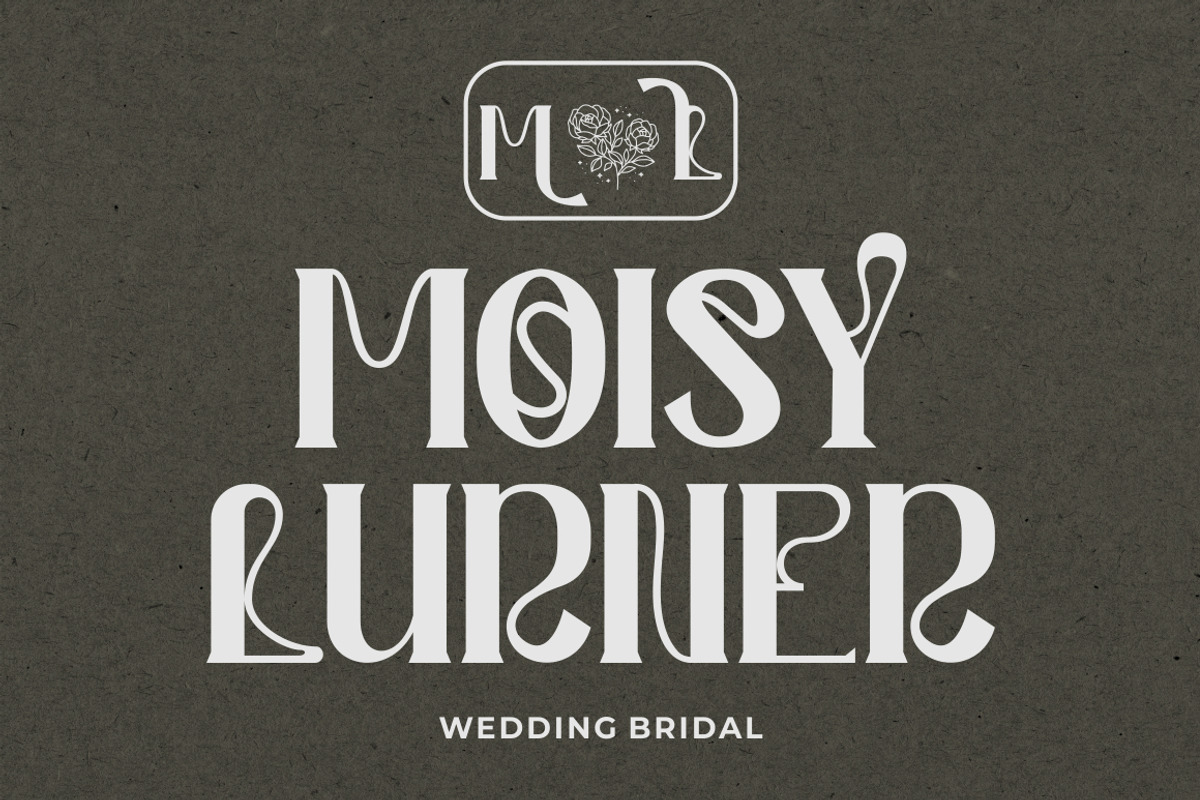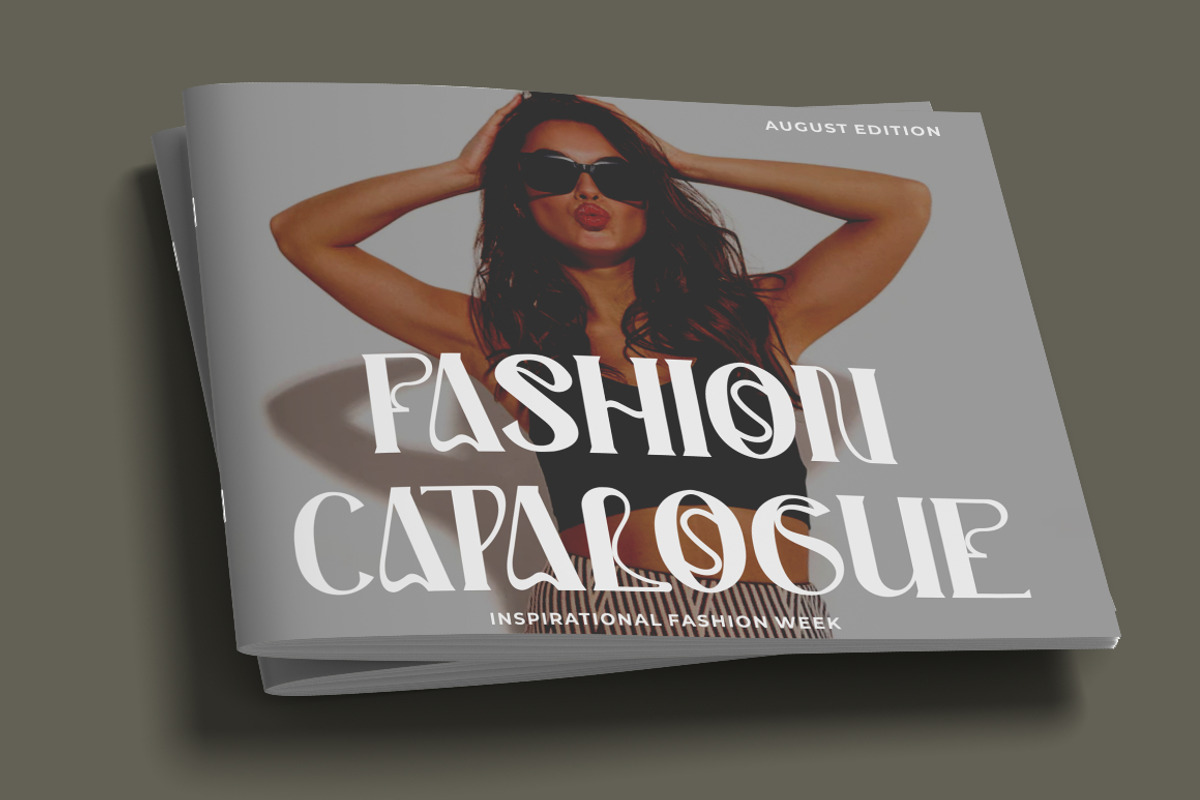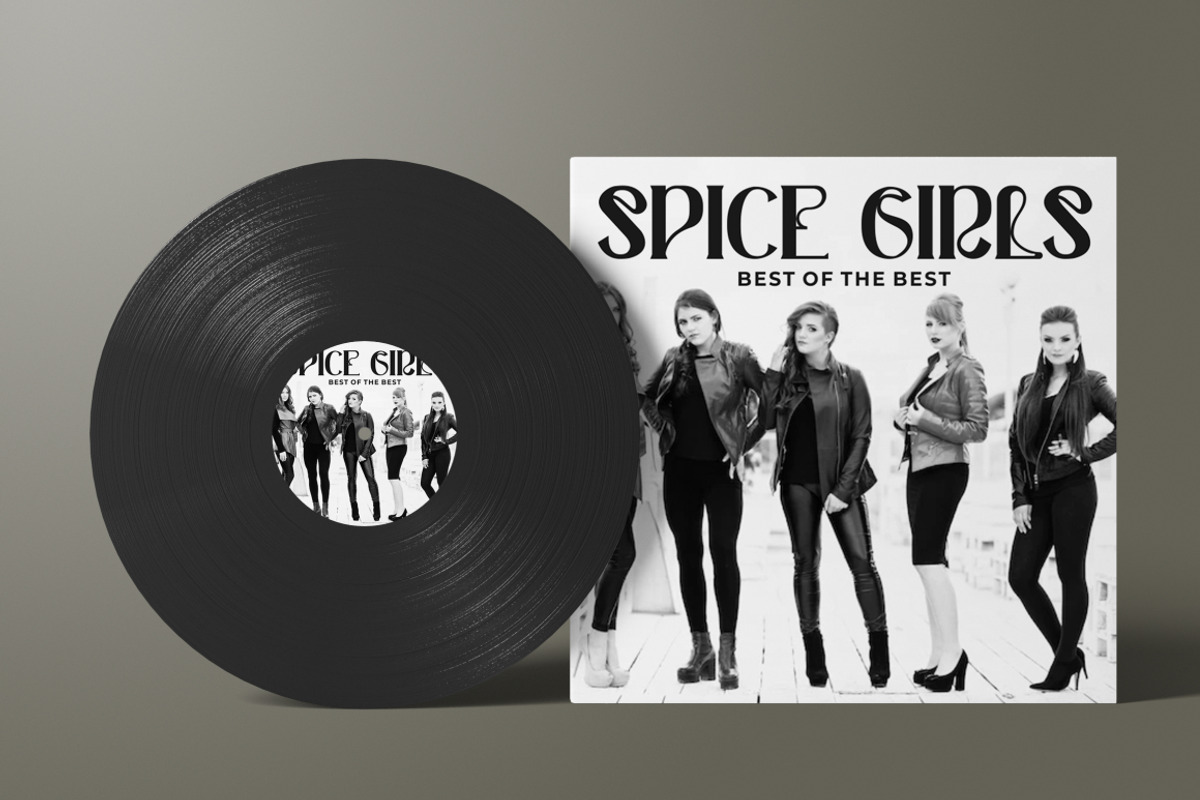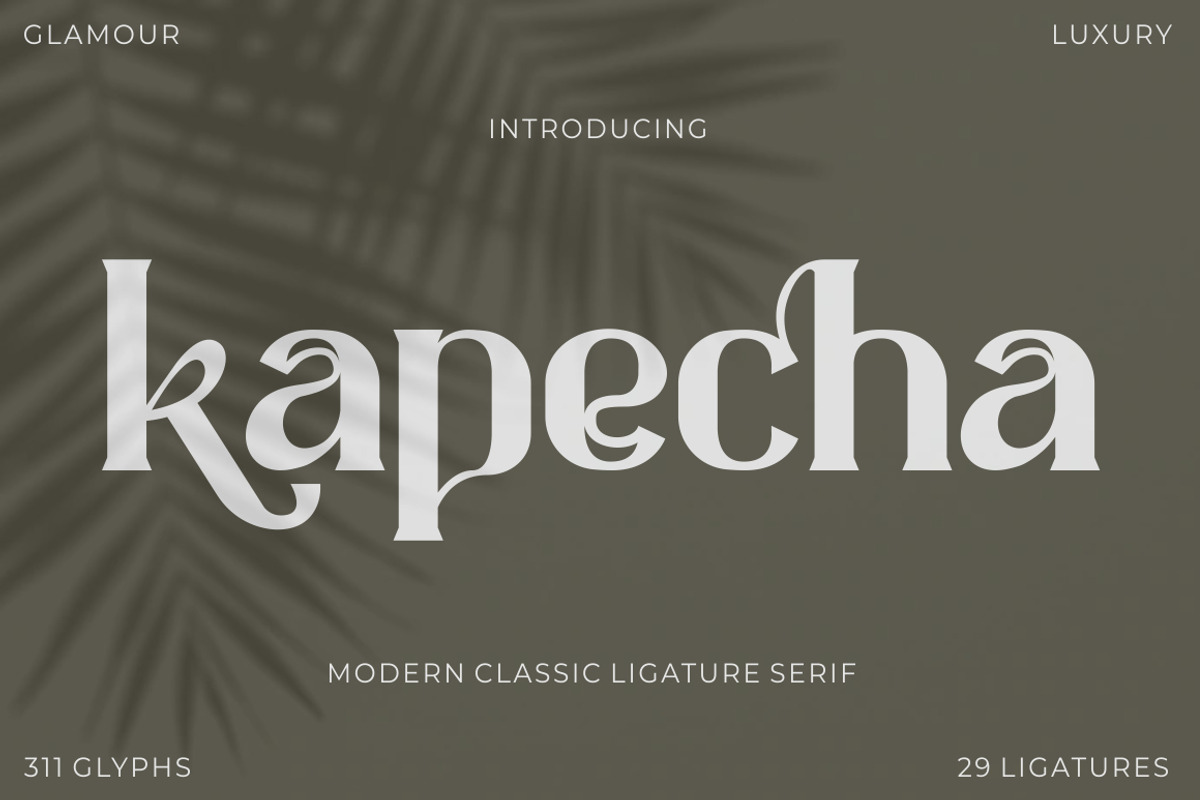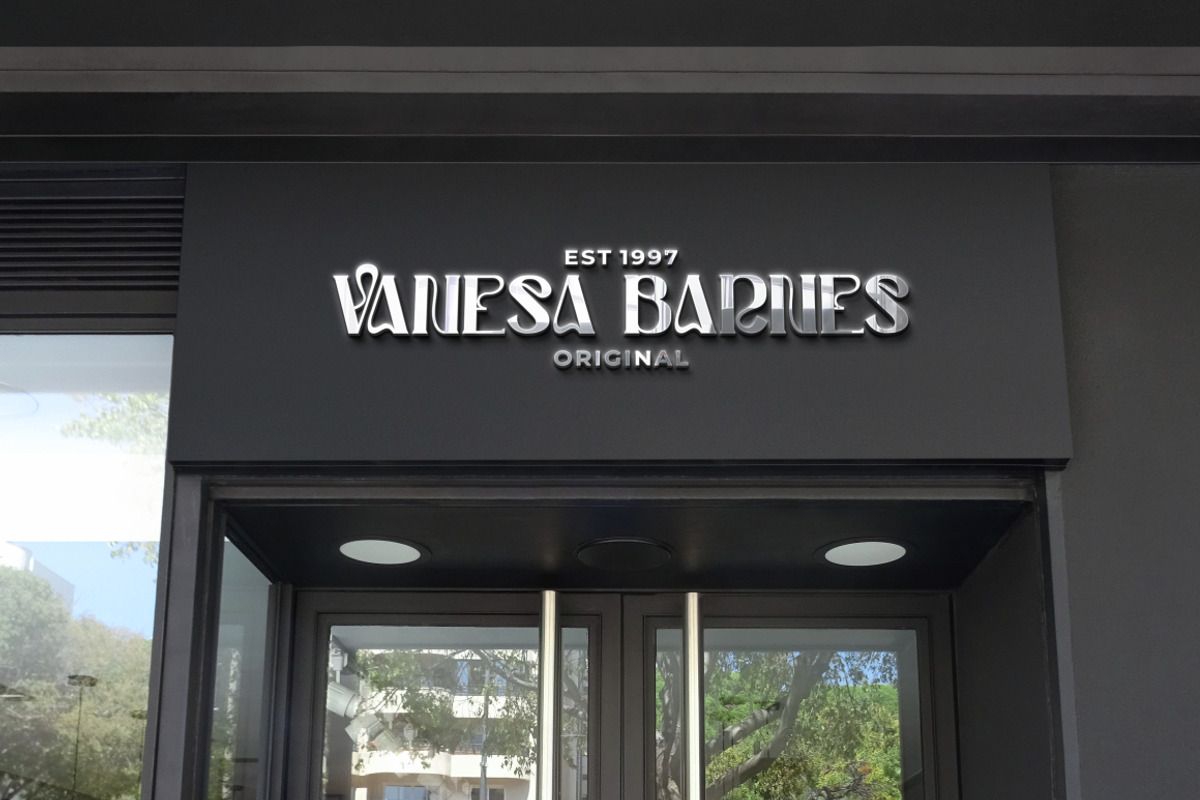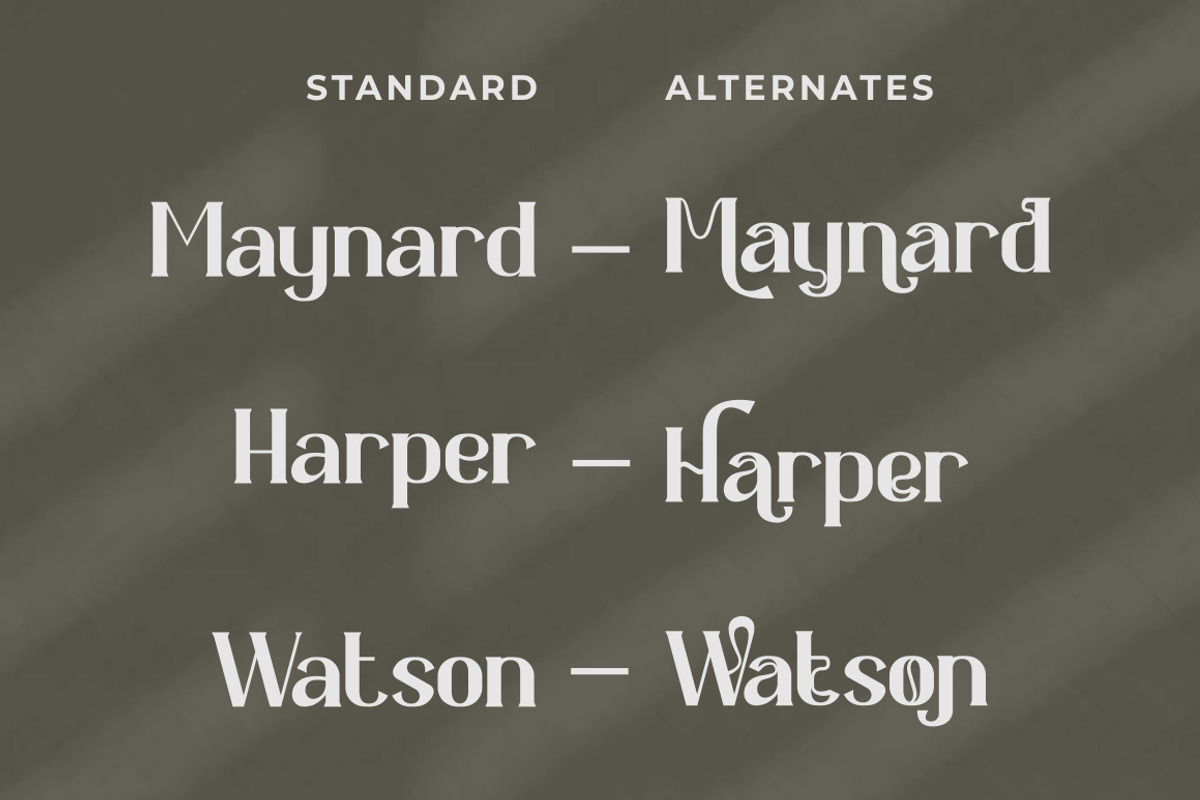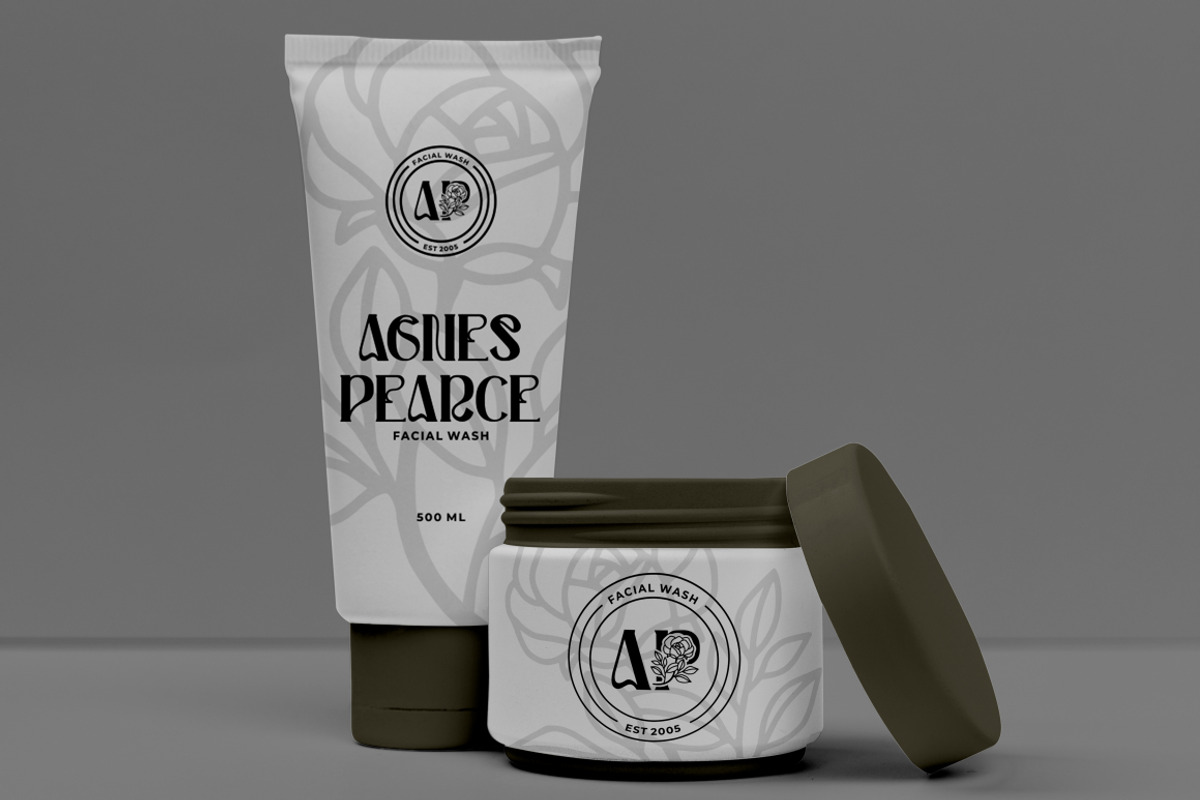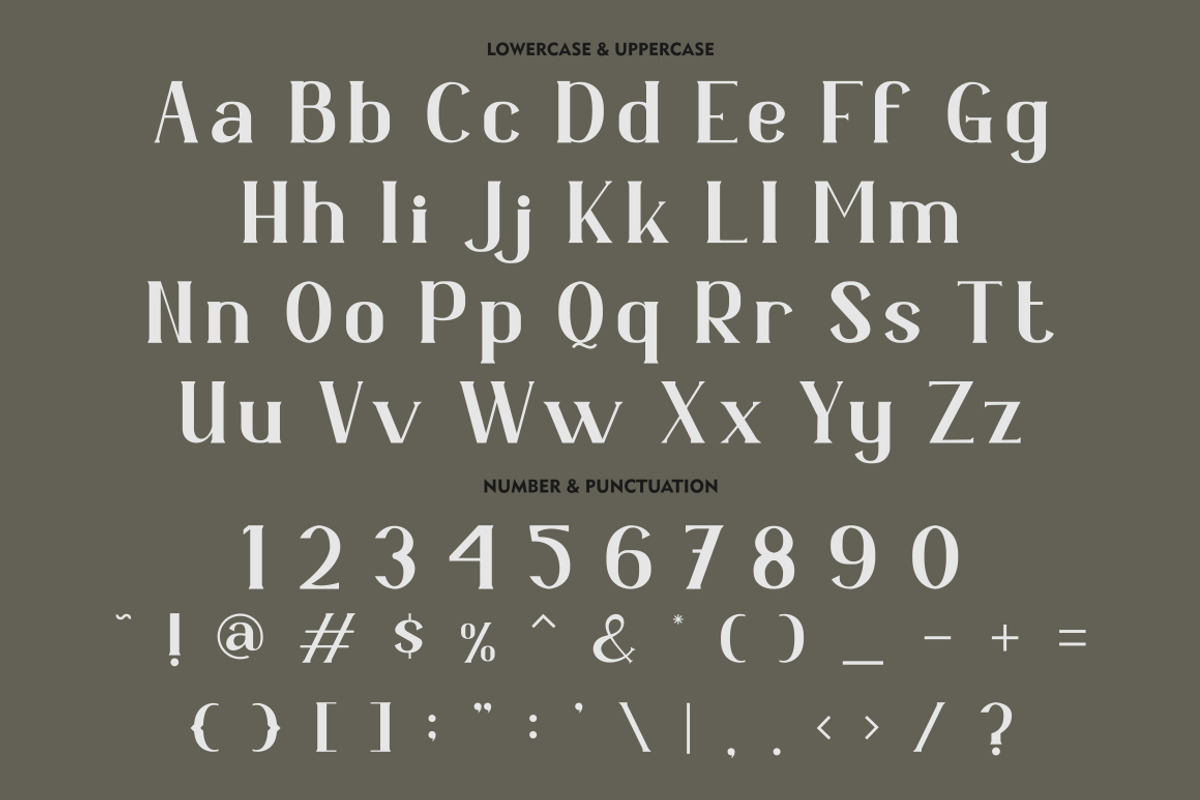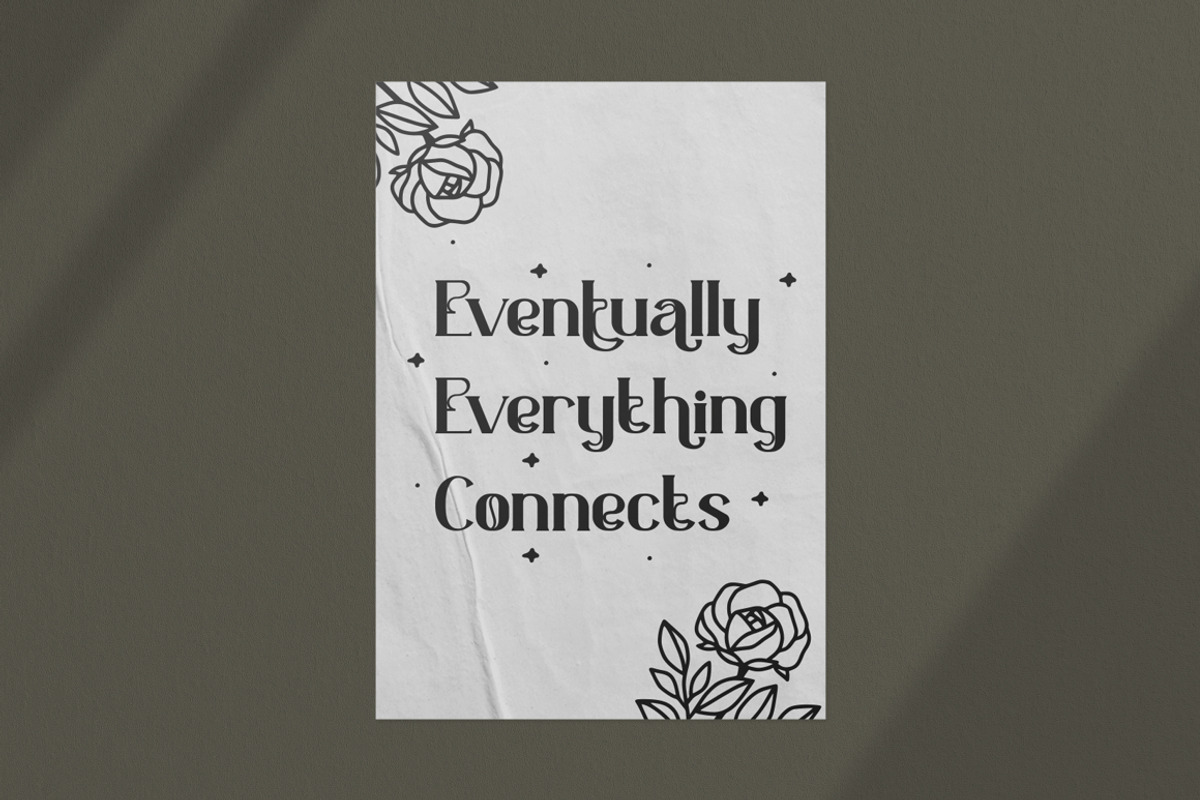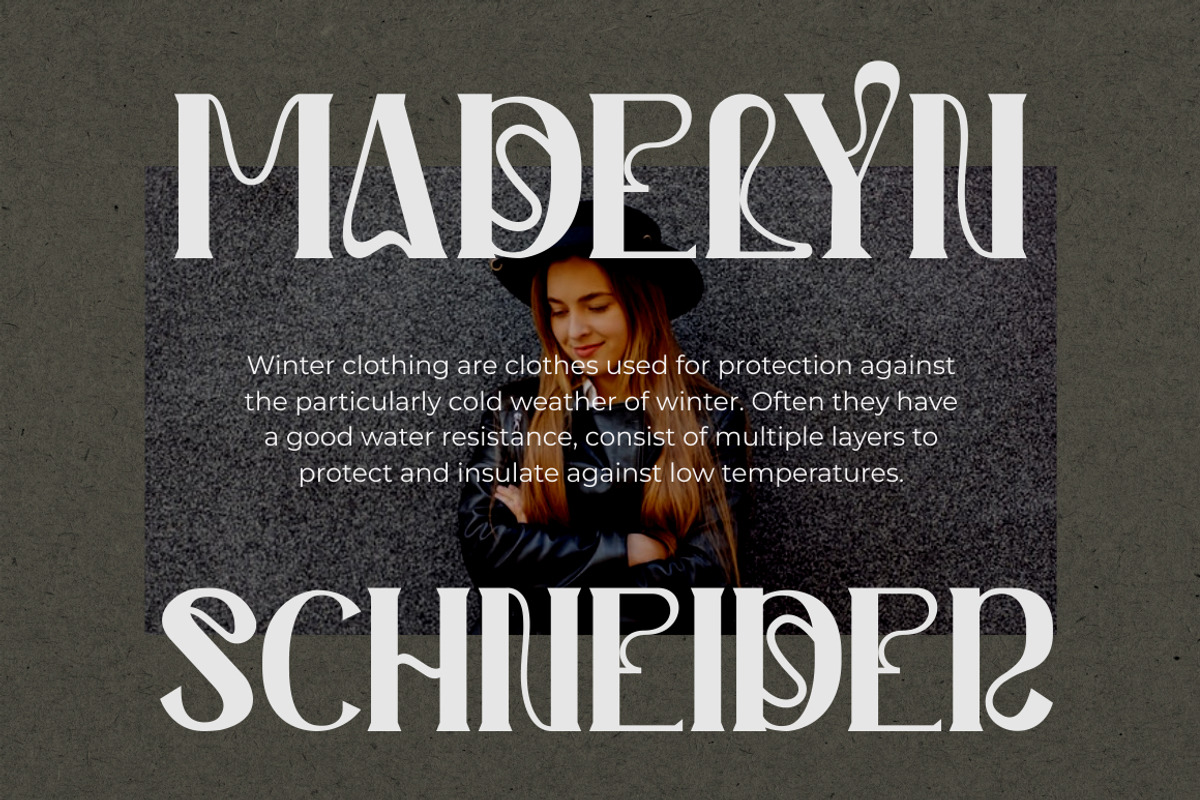
Kapecha - Modern Ligature Serif Font
Kapecha - Modern Classic Ligature Serif
Introducing a new modern serif font called “ Kapecha “. Inspired from unique typography and lettering in the classic alphabet from bali and we combine with modern typography style. With a alternate character, you can make letter combinations for lettering with a lot of options. Come with open type feature ( a lot of alternates and end swash), its help you to make great lettering. Kapecha best uses for Logotype, heading,cover, poster, logos, quotes, product packaging, header, merchandise, social media & greeting cards and many more. Kapecha font is also support multi language.
Comes with feature :
- Opentype (Alternates And Ligatures)
- Number, Punctuation And Symbols
- Multilanguage Support.